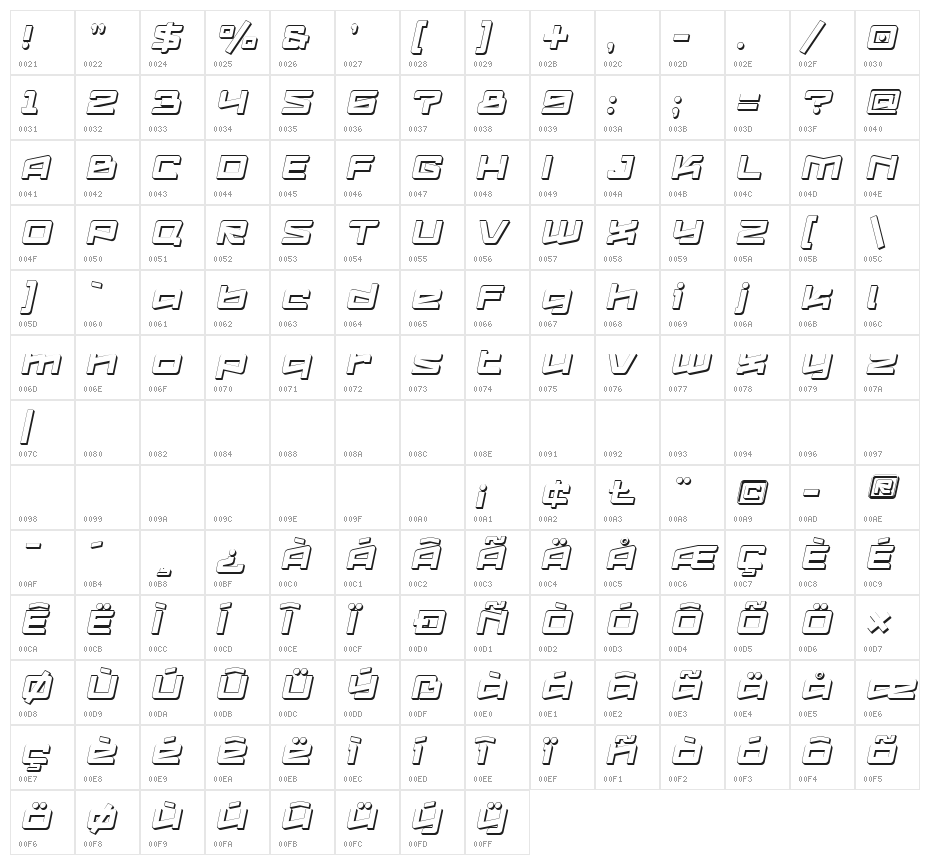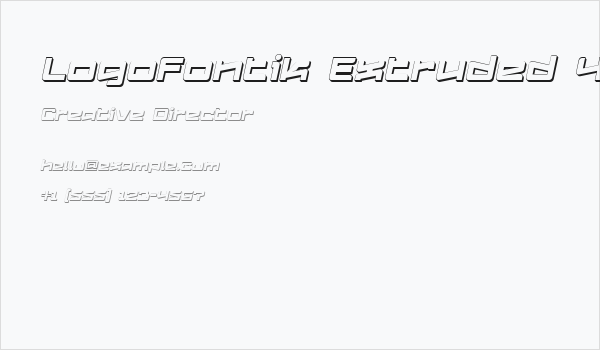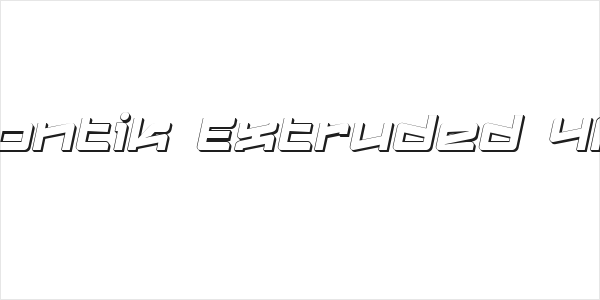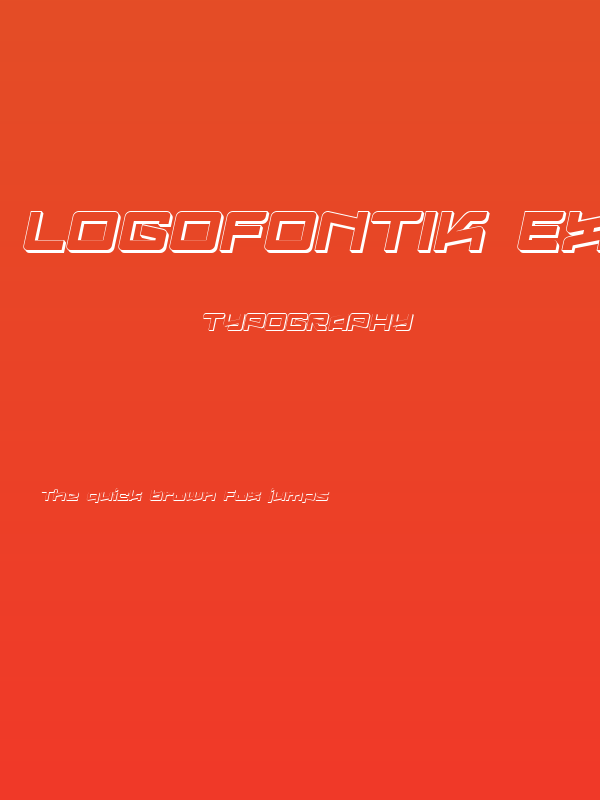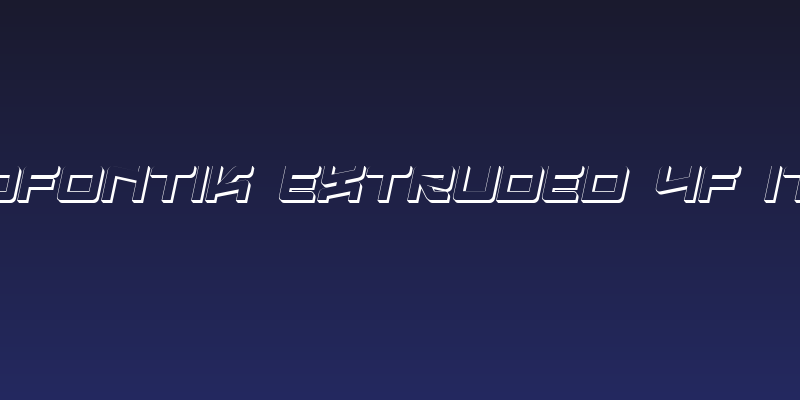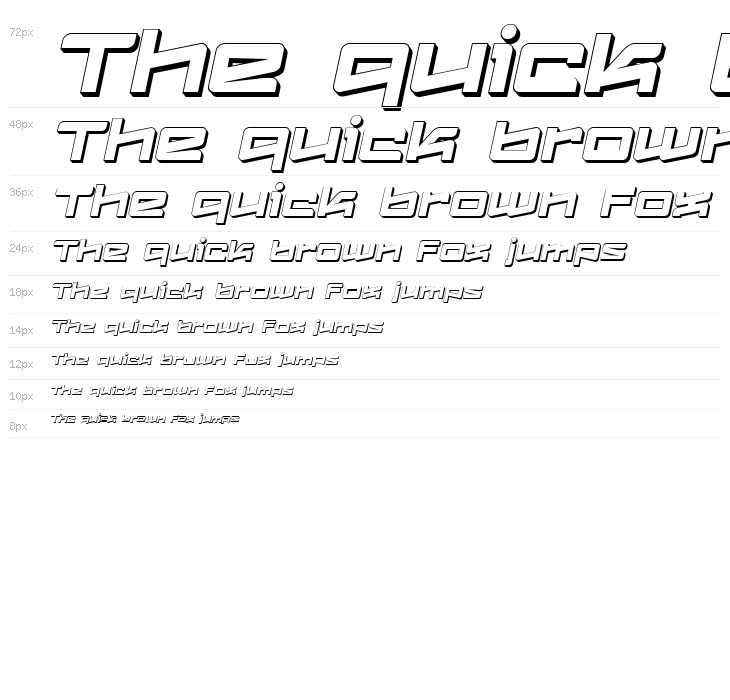
Logofontik Extruded 4F Italic Font
Logofontik Extruded 4F Italic Description
This font features a bold, extruded style with a modern and dynamic appearance. The characters are outlined with a shadow effect, giving them a three-dimensional look. The design is angular and geometric, with sharp edges and a futuristic feel. The italic slant adds a sense of motion and speed, making it ideal for projects that require a sense of energy and forward-thinking. The uppercase and lowercase letters maintain consistency in style, while the numerals and special characters complement the overall aesthetic. This font is perfect for eye-catching headlines, logos, and branding materials.
| Proposed Projects | Ideal for futuristic branding, sports team logos, tech company materials, and dynamic headlines. |